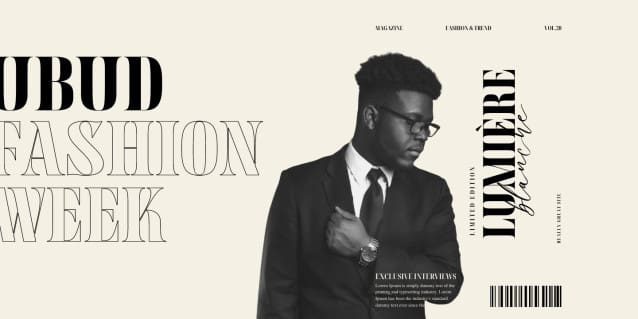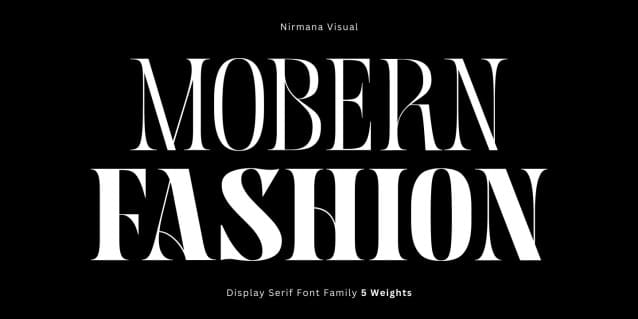
Mobern Fashion Font
Mobern Fashion Font – Unique& playful serif family with 5 Weights. MobernFashion offers beautiful typographic harmony for a diversity of design projects, including logos & branding, social media posts, advertisements & product designs.